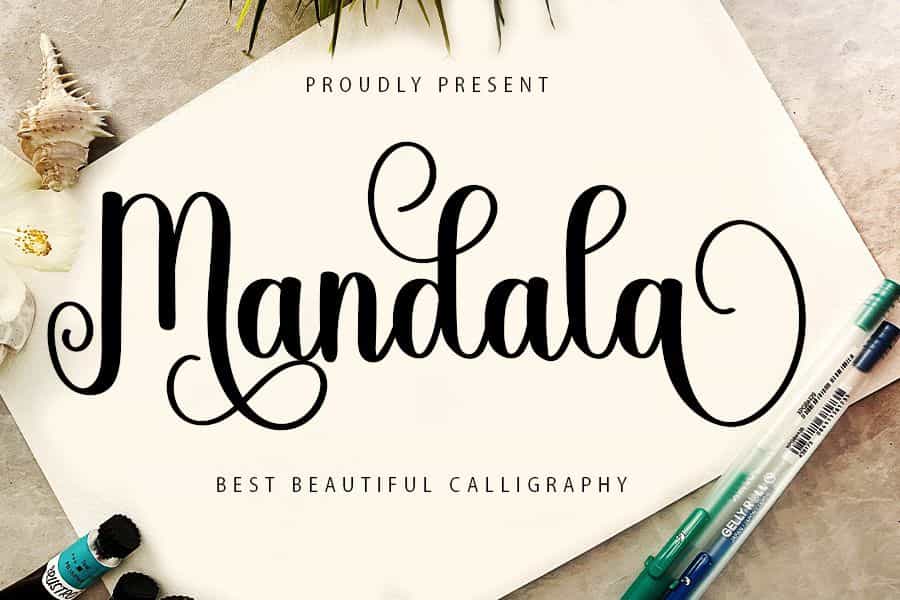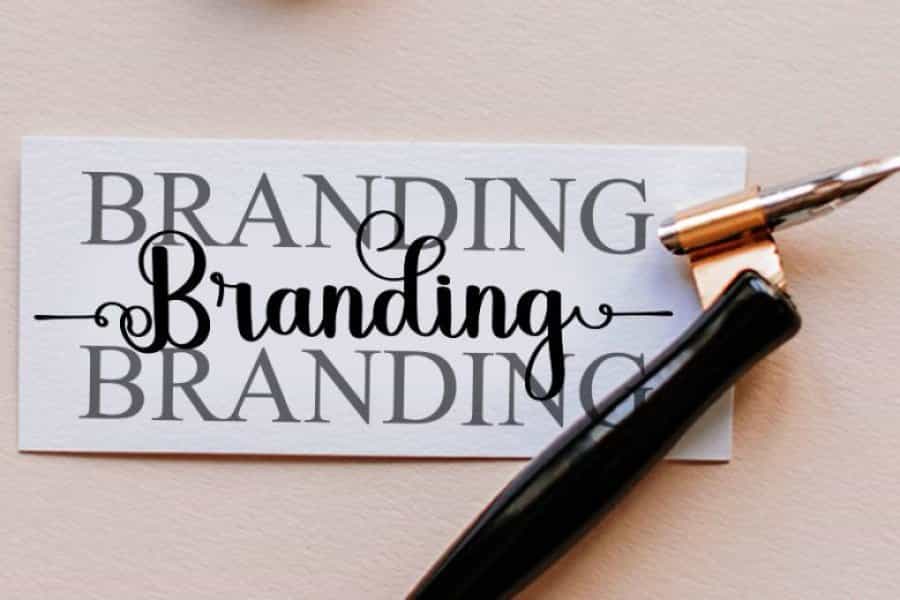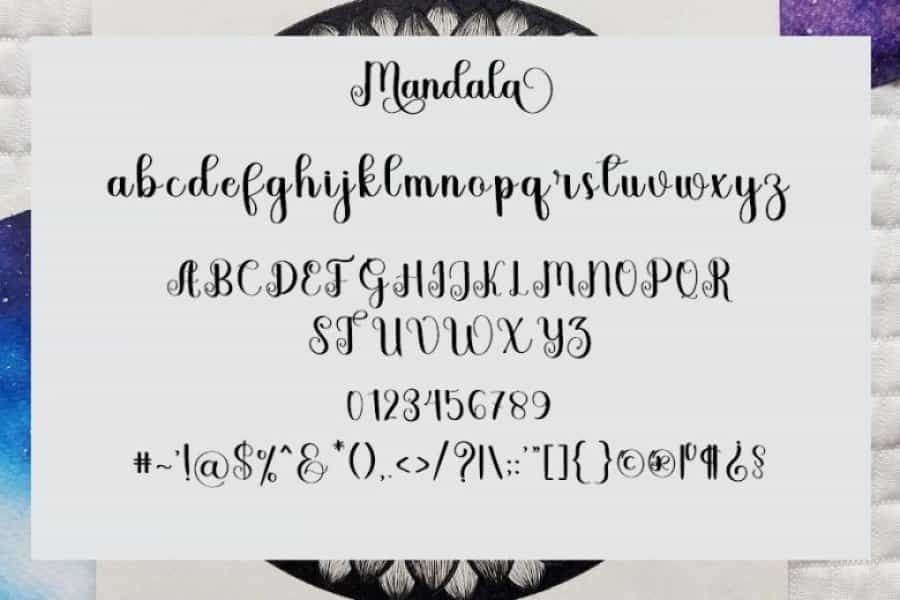
Mandala is a beautiful script typeface created with paint brushes. Ideally suited to creating wedding invitations, logos T-shirts headings letterhead signs labels news posters badges badges badges etc.